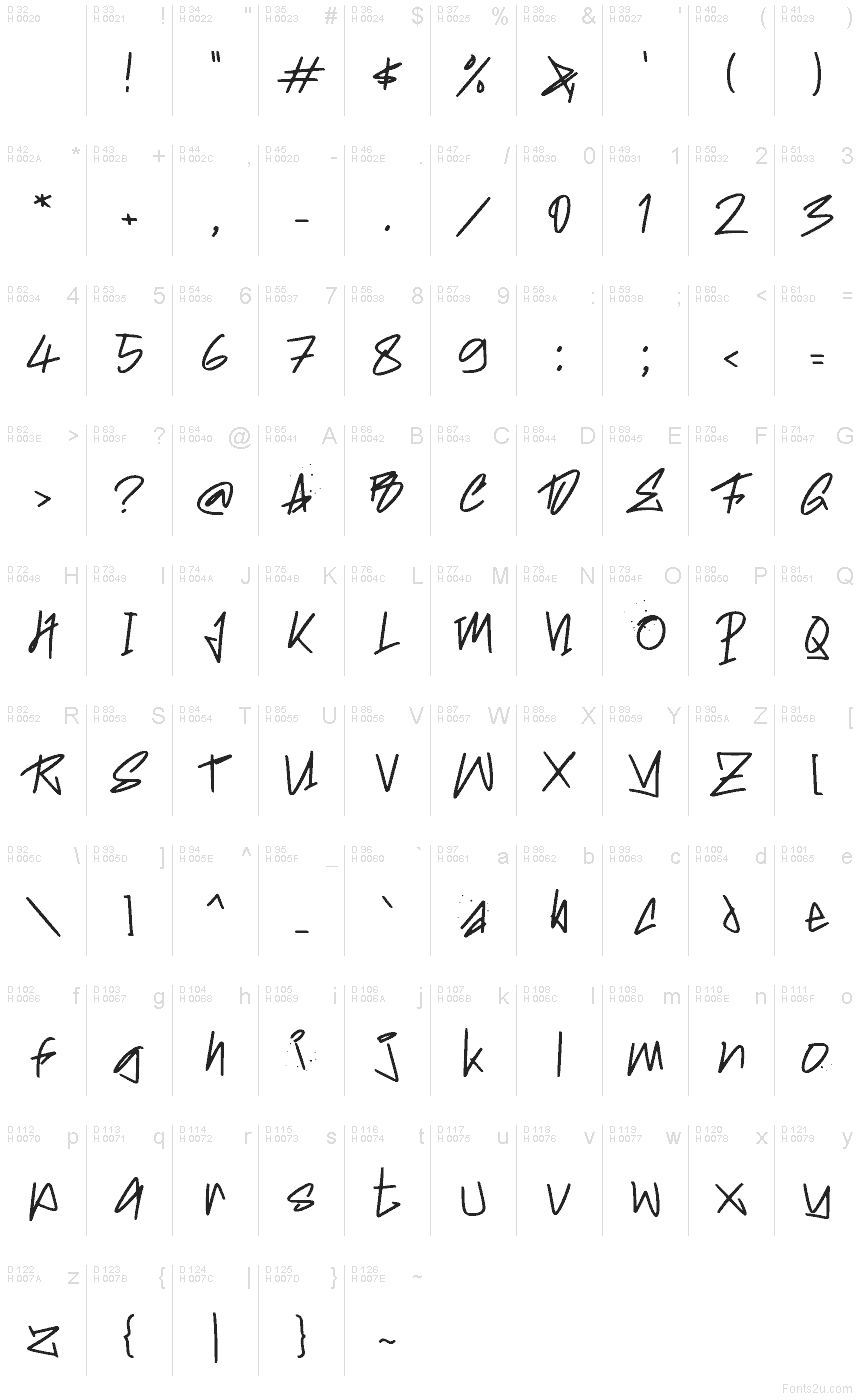
HARDTAGZ
Hardtagz font by wep is inspired by the urban graffiti aesthetics that characterize modern cities. Energetic and spontaneous, the free display font delivers an expressive experience to each viewer, standing out when paired with projects inspired by comics or video games.
Use it for posters and covers, adding artist names to album art or creating doodles for blogs. Hardtagz can also be used for brand design presentations, packaging projects, and advertisements.